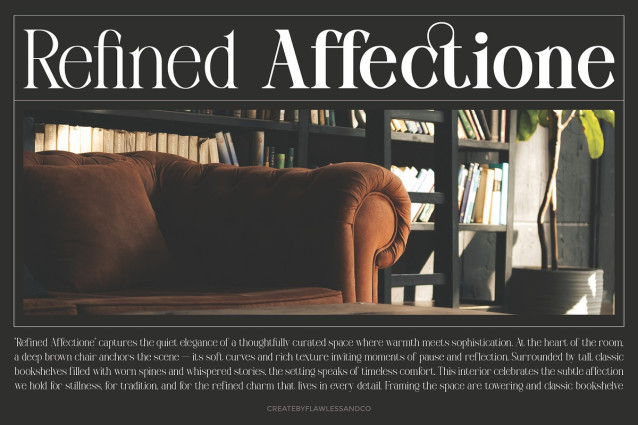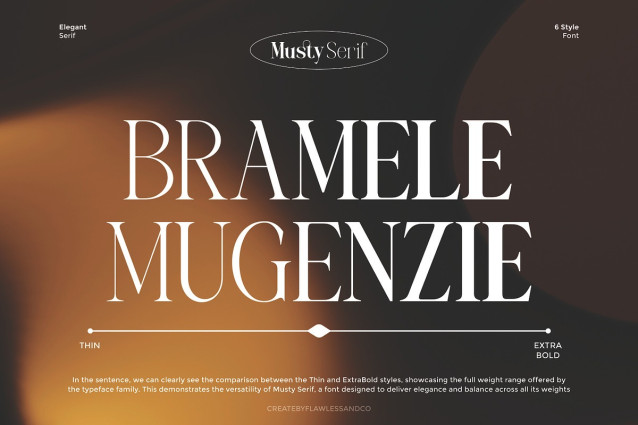
Musty Serif Font
Musty Serif Font is a refined and elegant serif family designed to embody sophistication and timeless appeal. Featuring six versatile styles, from Thin to Extra Bold, this typeface offers graceful curves and perfectly balanced proportions that elevate any design. With its classic yet modern character, MustySerif is the ideal choice for branding, editorial layouts, packaging, and invitations—making every project feel polished and professional.